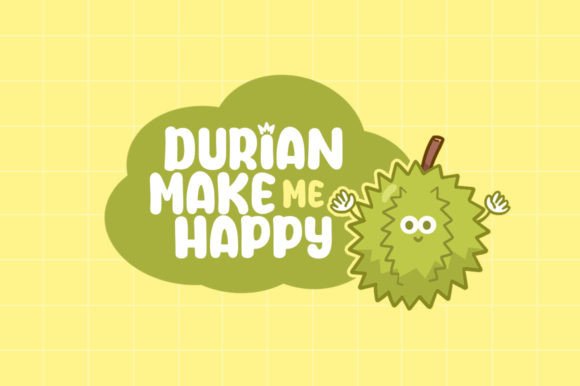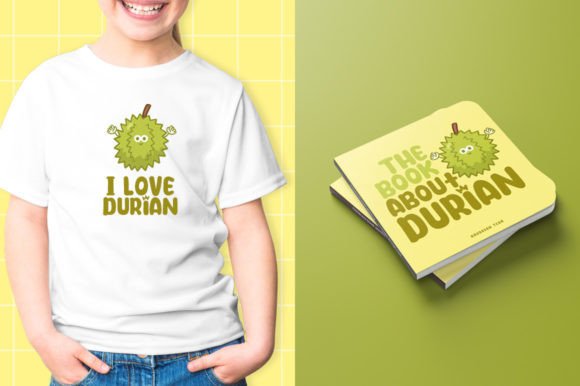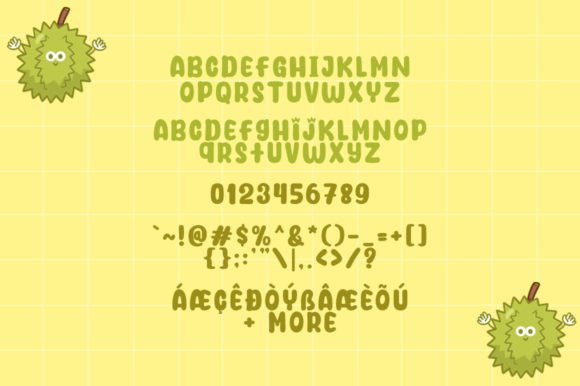
Introduction to Durian Days Font Font
Fonts play a crucial role in design, and the Durian Days Font font is a typeface that brings both character and versatility to any project. Whether you’re working on a branding project, a website, or a print design, the Durian Days Font font offers a unique style that can elevate your work.
Durian Days is a fun and cool display font.
Whether you use it for cartoon-related designs, childrenβs games, or just any creation that requires a playful touch, this font is the perfect choice for your designs .
Key Features of Durian Days Font Font
Why Choose Durian Days Font Font?
The Durian Days Font font is more than just a typeface β it’s a design tool that helps you communicate your message with style and clarity. Its unique character set and versatile design make it suitable for a wide range of applications, from elegant invitations to bold headlines.
With its carefully crafted letterforms and balanced proportions, the Durian Days Font font ensures readability and visual appeal across all mediums.
What makes Durian Days Font font special?
The Durian Days Font font stands out with its unique design, exceptional readability, and versatility across various design applications.